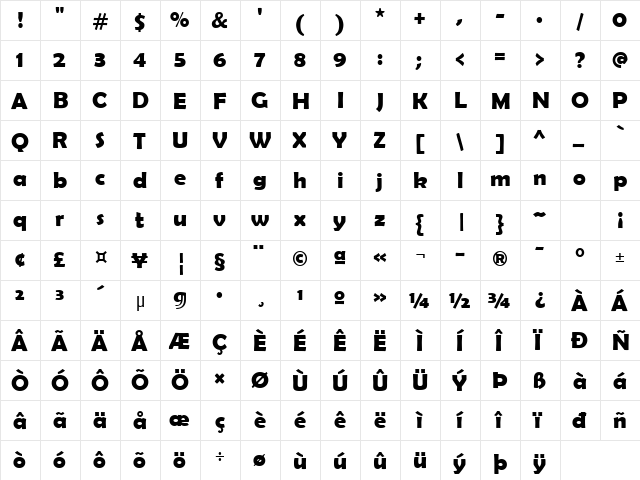
Berlin Sans FB Demi Bold
| Foundry | The Font Bureau, Inc. |
| Designer | David Berlow |
Design Context for Berlin Sans FB Demi Typeface
Berlin Sans FB Demi takes a measured approach to typography — its balanced proportions and neutral character make it a reliable workhorse for both digital and print work. The heavy weight commands attention and anchors typographic hierarchies.